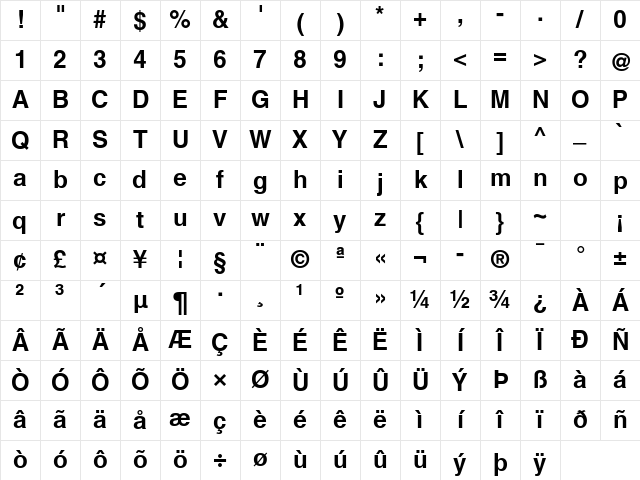
Helvetica World Bold
Designer: Linotype Design Studio
Design Context for Helvetica World
Helvetica World is a composed and adaptable typeface that performs quietly and consistently across a wide range of design contexts. Its bold stroke weight gives it real presence on the page.